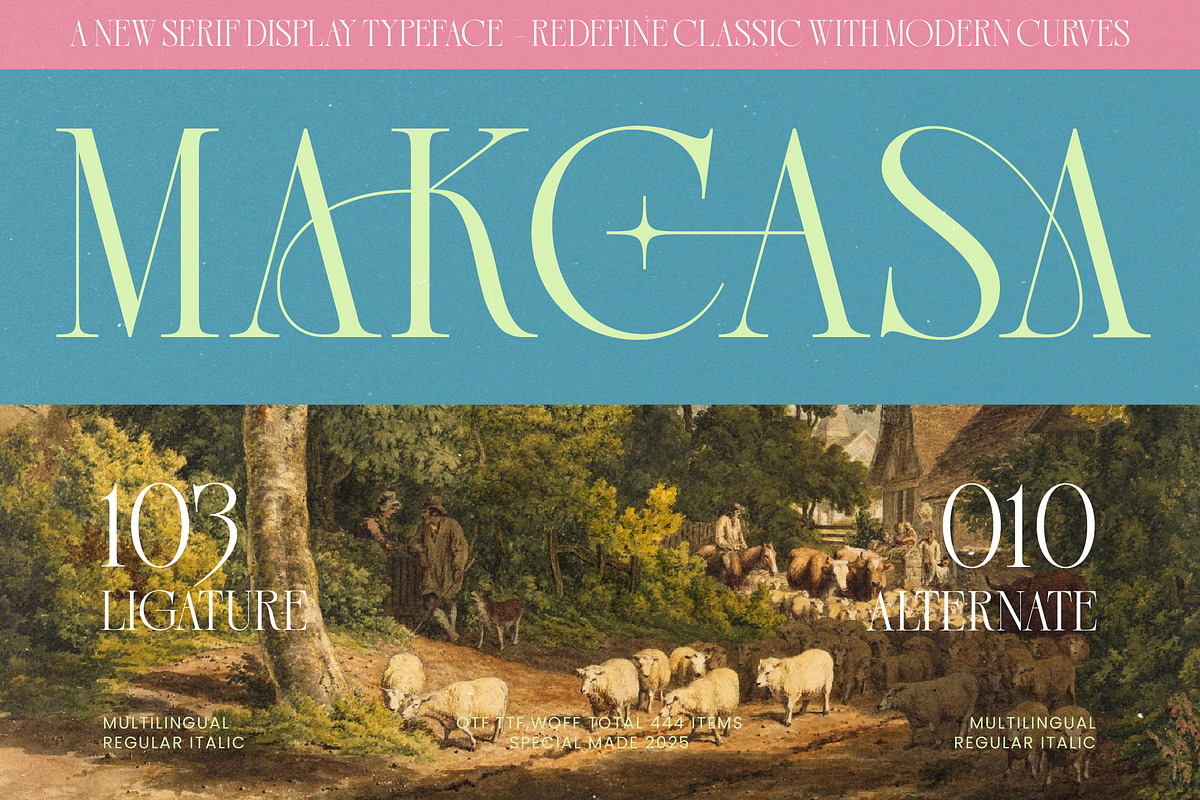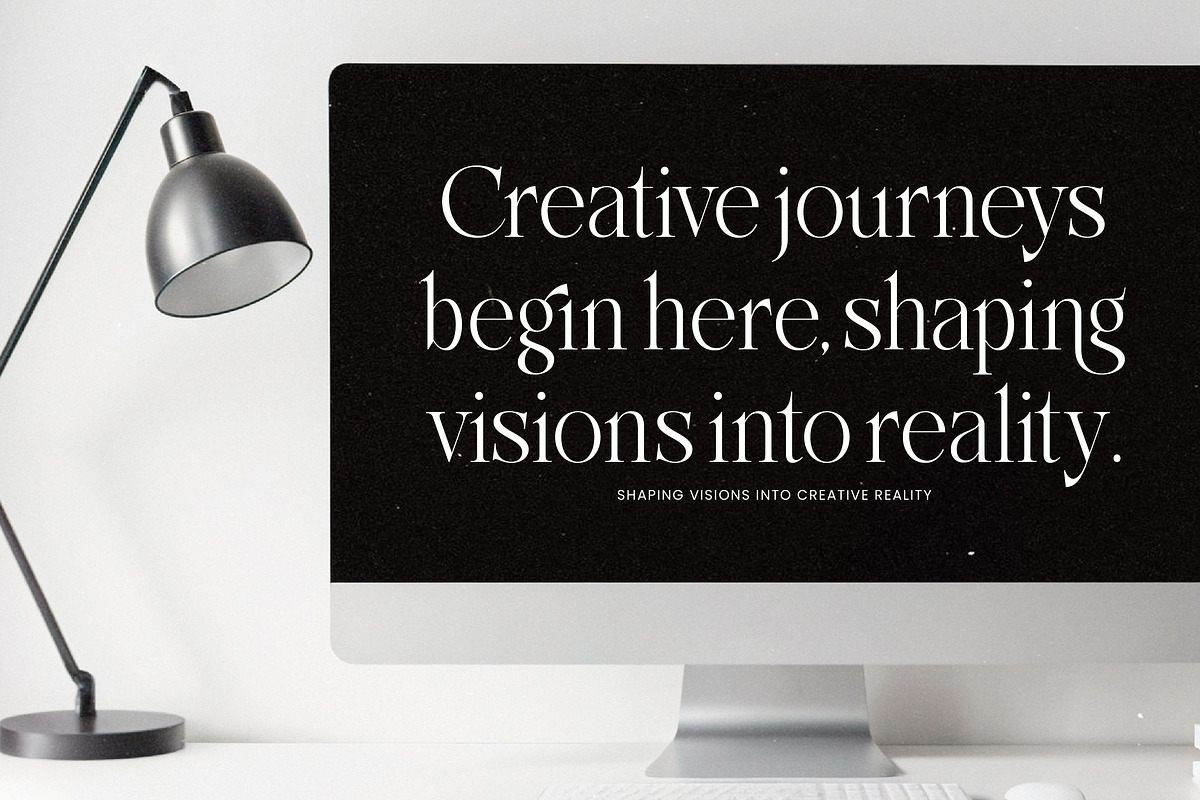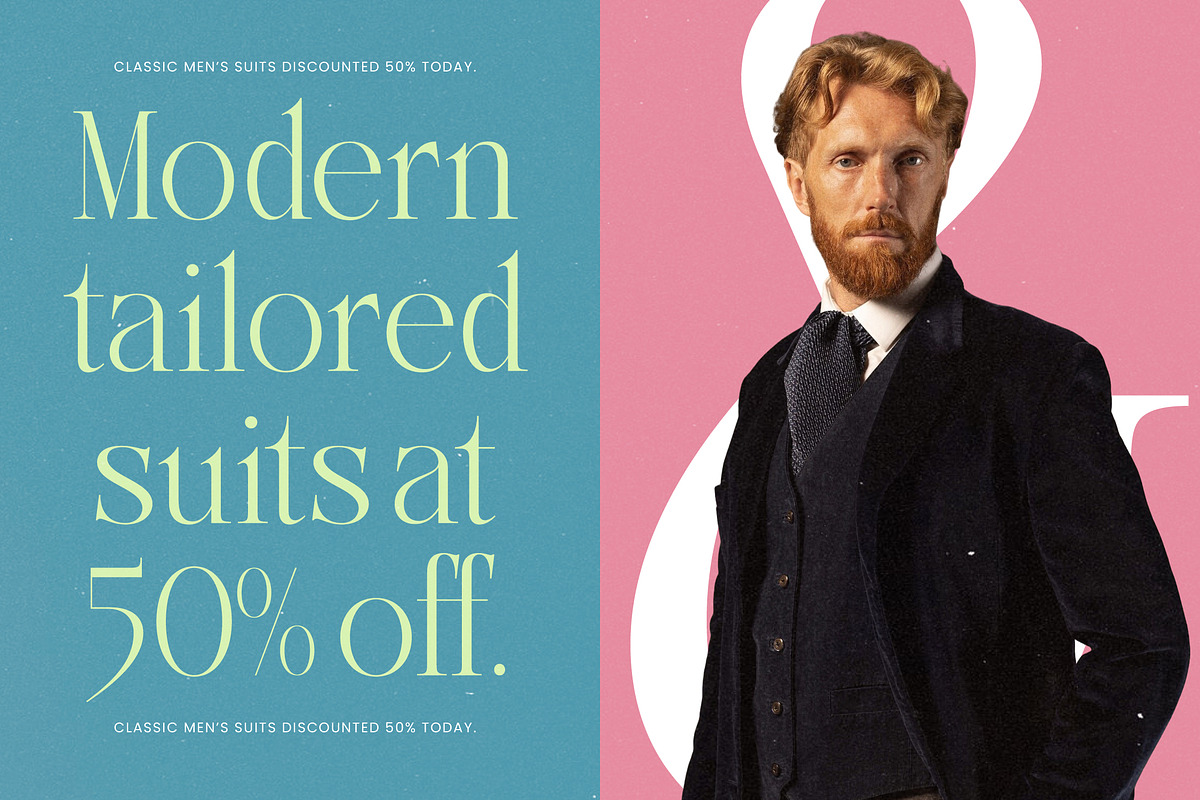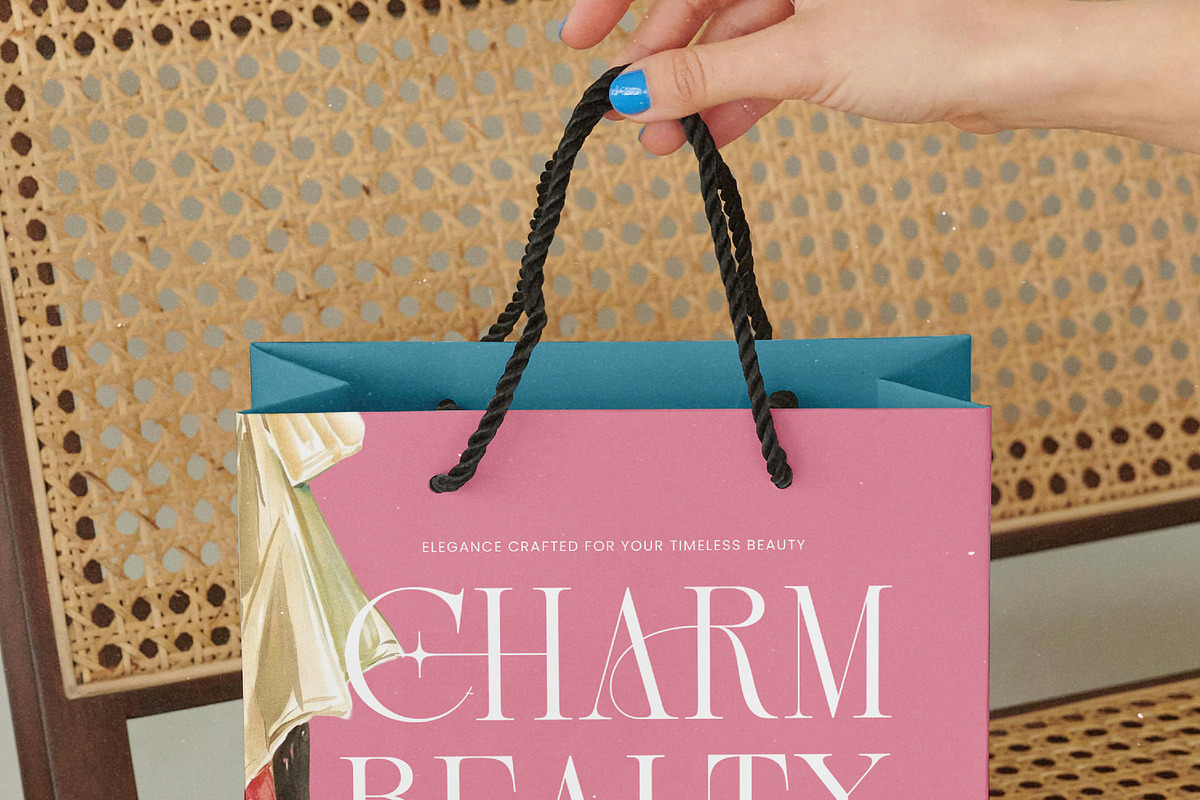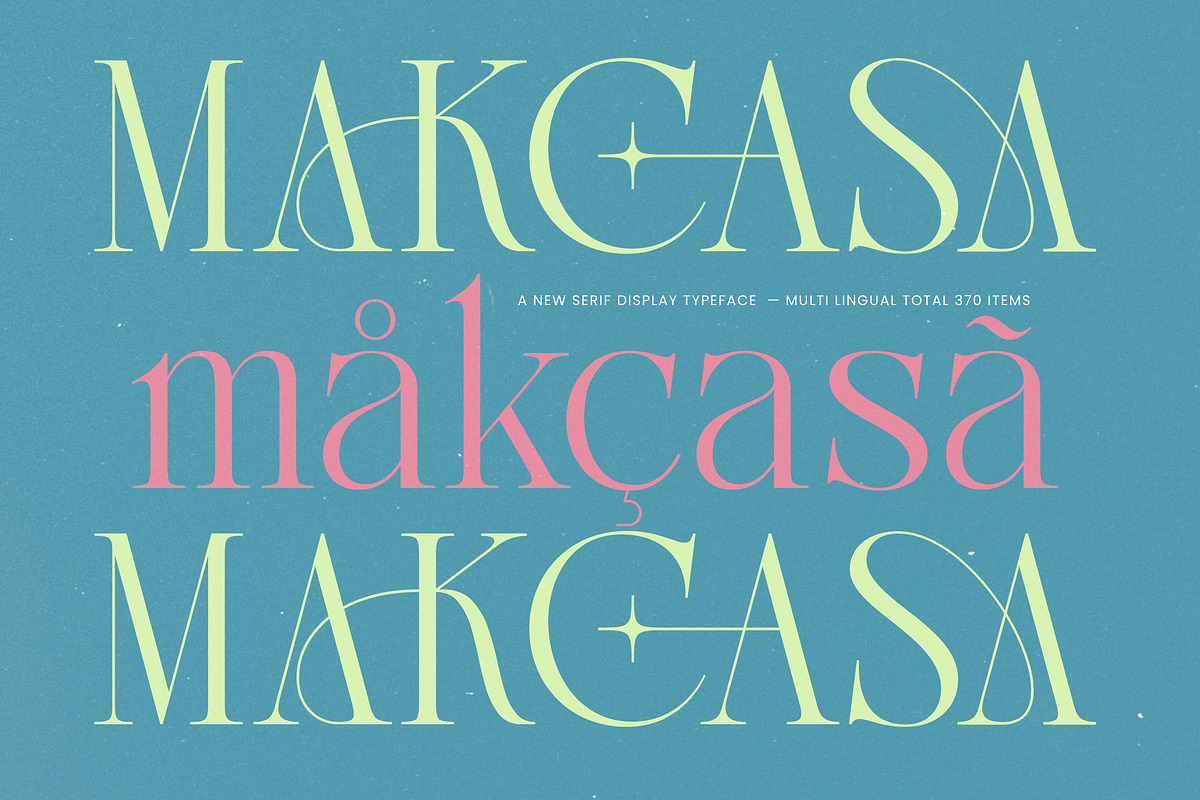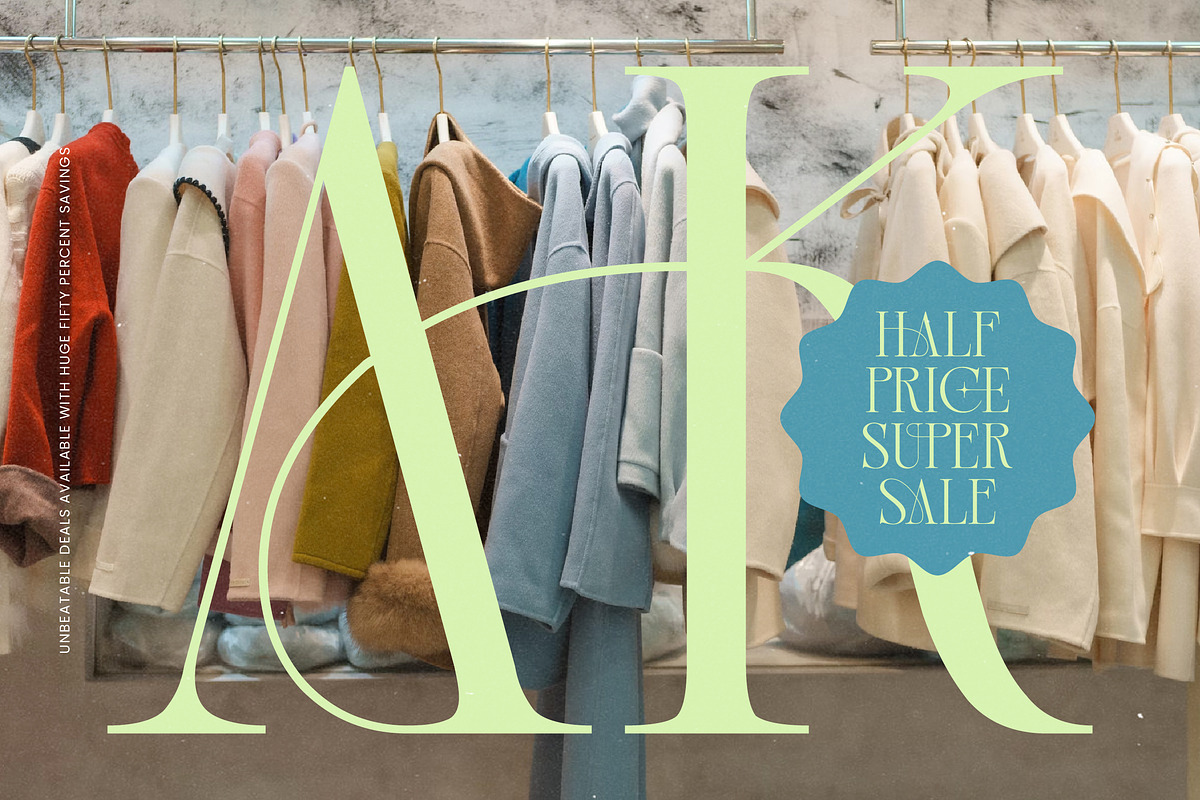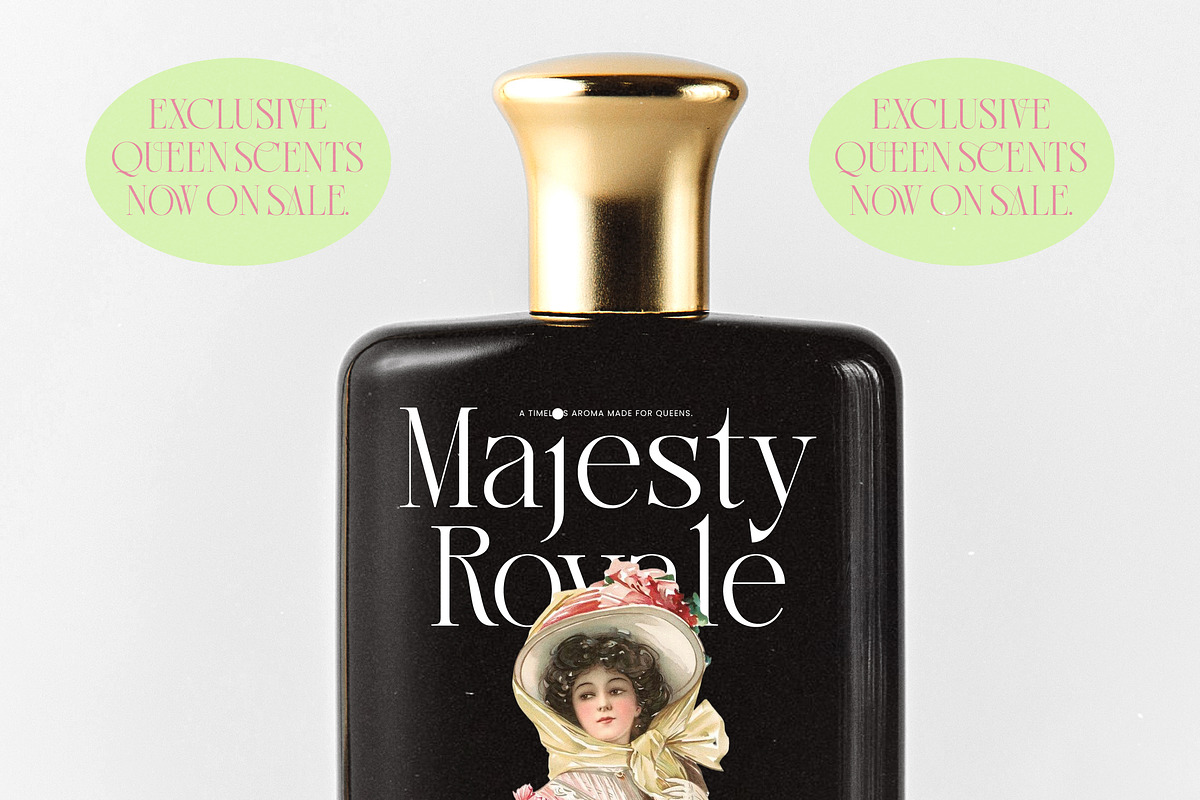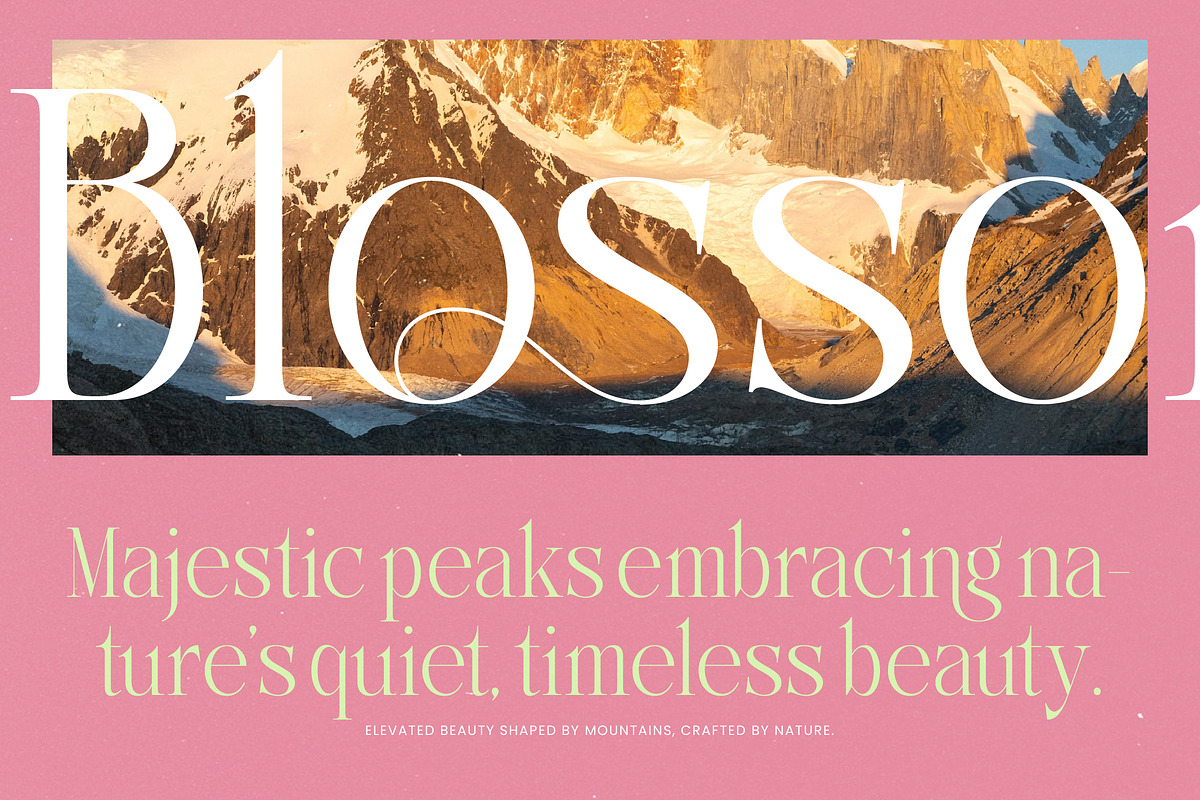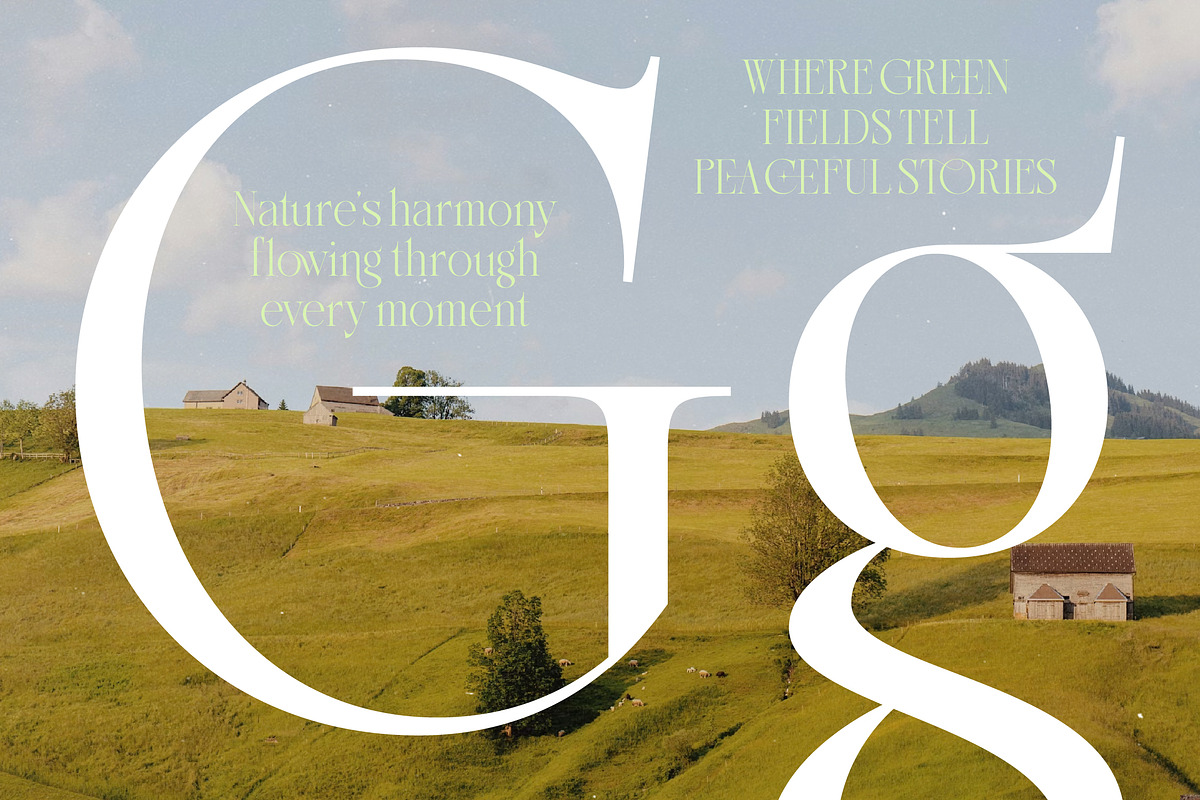
Makcasa Modern Serif Display Font
Elevate your creative vision with Makcasa, a breathtaking serif display typeface that captures the essence of timeless elegance. This font transforms every word into a piece of art, blending classical structure with a fluid, avant-garde spirit.
Drawing inspiration from the harmonious intersection of classical oil paintings and contemporary high-fashion layouts, this typeface was born to bridge the gap between tradition and the now. It evokes the quiet, majestic beauty of natural landscapes and the refined atmosphere of a luxury gallery.
Defined by its exquisite silhouettes, this modern serif display is a masterclass in luxury typography. Its high-contrast serif strokes provide an unmistakable editorial font presence, ensuring a powerful branding impact for projects that demand nothing less than perfection.
Perfectly aligned with the current modern serif trend, this typeface responds to the industry's craving for editorial display fonts that feel unique. It leads the way in character-driven typography, offering a distinctive voice in a crowded digital marketplace.
This versatile font is the ultimate choice for high-end logo design and comprehensive branding identity systems. Whether it is used for prestigious editorial layouts, luxury packaging, romantic wedding stationery, or avant-garde fashion magazines, it performs with effortless grace.
Unlock endless creative possibilities with over 100 unique ligatures and specialized alternates that allow for custom-tailored text. Complete with elegant swashes and full multilingual support for international characters, this font ensures your message is globally accessible and visually stunning.